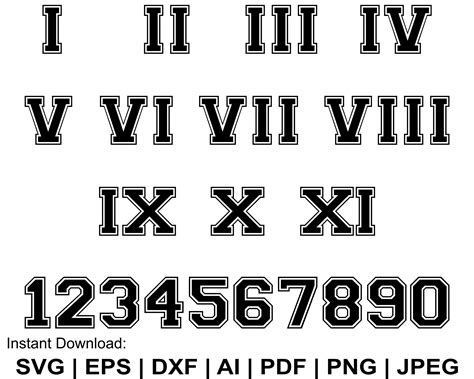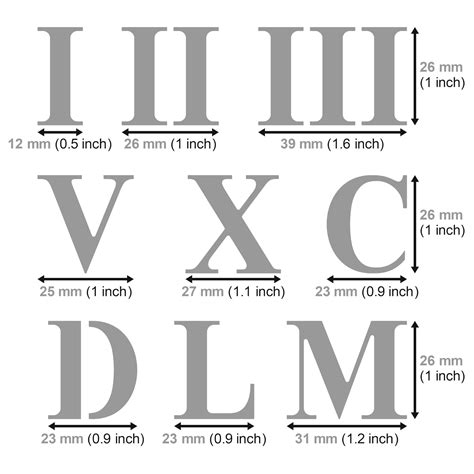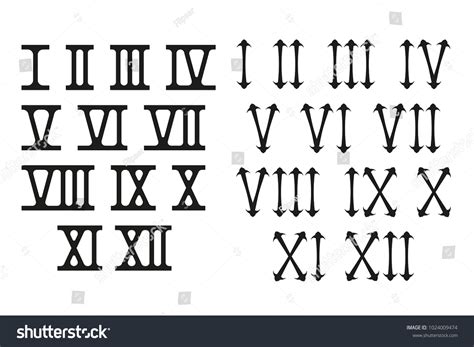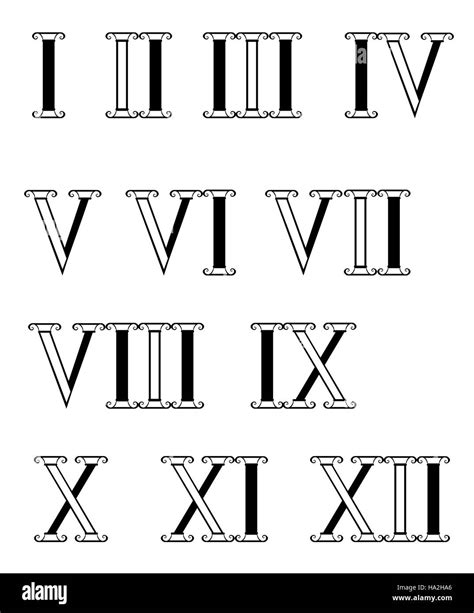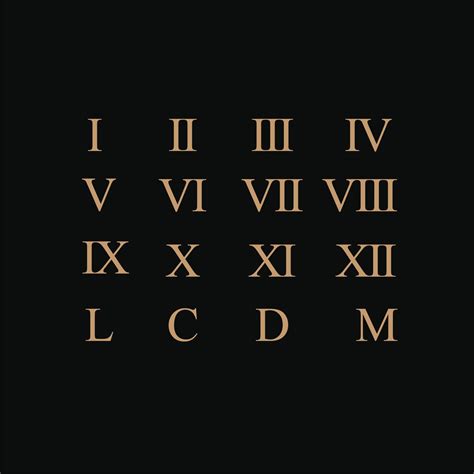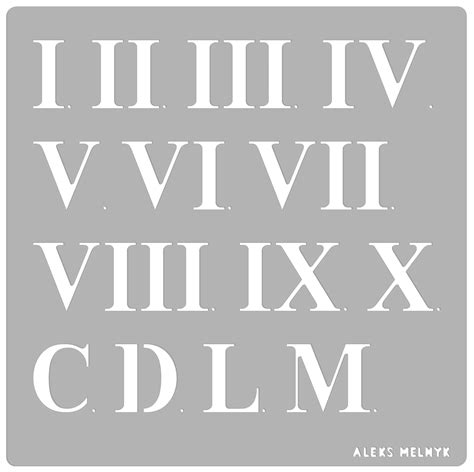
Roman numerals have been a part of human history for centuries, serving as a foundational system for counting and recording dates. Today, the Roman numeral font continues to captivate designers, historians, and enthusiasts alike. This timeless script offers a unique aesthetic that blends elegance with functionality, making it a popular choice for various applications, from typography to branding.
Understanding Roman Numerals
Roman numerals are a numeral system that originated in ancient Rome and remained the standard way of writing numbers throughout Europe well into the Late Middle Ages. The system uses combinations of letters from the Latin alphabet to signify values. The basic symbols are:
- I = 1
- V = 5
- X = 10
- L = 50
- C = 100
- D = 500
- M = 1000
These symbols can be combined to represent larger numbers. For example, IV represents 4, and IX represents 9. The system is additive and subtractive, where smaller values before larger ones are subtracted, and smaller values after larger ones are added.
The Aesthetic Appeal of Roman Numeral Font
The Roman numeral font is renowned for its classic and sophisticated appearance. Its use in design can evoke a sense of tradition and timelessness, making it ideal for projects that require a touch of elegance. Whether used in logos, invitations, or historical documents, the Roman numeral font adds a layer of sophistication that is hard to achieve with modern numerals.
One of the key reasons for the enduring popularity of the Roman numeral font is its versatility. It can be used in a variety of contexts, from formal to casual, and still maintain its distinctive charm. For instance, it is commonly seen in:
- Clock faces
- Book chapter headings
- Movie credits
- Historical markers
- Wedding invitations
Each of these applications benefits from the unique visual appeal of the Roman numeral font, enhancing the overall aesthetic and readability.
Historical Significance
The historical significance of Roman numerals cannot be overstated. They were the primary method of numerical notation in Europe for over a thousand years. The Roman numeral font has been used in some of the most iconic historical documents and artifacts, including:
- The Colosseum inscriptions
- Medieval manuscripts
- Renaissance art
- Ancient coins and currency
These historical uses have cemented the Roman numeral font as a symbol of enduring cultural heritage. Today, it continues to be a source of inspiration for designers and historians alike, who appreciate its rich history and timeless beauty.
Modern Applications of Roman Numeral Font
While the Roman numeral font has deep historical roots, it is also highly relevant in modern times. Its use in contemporary design can add a touch of sophistication and elegance to various projects. Some modern applications include:
- Branding and logos
- Typography in print and digital media
- Event invitations and announcements
- Architectural designs
- Fashion and jewelry design
In each of these applications, the Roman numeral font serves as a visual anchor, drawing attention and adding a layer of depth to the design.
Designing with Roman Numeral Font
When incorporating the Roman numeral font into your design projects, there are several key considerations to keep in mind. These include:
- Legibility: Ensure that the font size and style are easily readable, especially in smaller formats.
- Context: Choose the appropriate style of Roman numeral font based on the context of your project. For example, a more ornate style might be suitable for invitations, while a simpler style might be better for logos.
- Consistency: Maintain consistency in the use of Roman numerals throughout your design to create a cohesive look.
By following these guidelines, you can effectively integrate the Roman numeral font into your designs, enhancing their visual appeal and historical significance.
Popular Roman Numeral Fonts
There are numerous Roman numeral fonts available, each with its unique characteristics and styles. Some of the most popular options include:
| Font Name | Description |
|---|---|
| Trajan | A classic serif font inspired by ancient Roman inscriptions, often used in movie titles and logos. |
| Century | A versatile serif font with a modern twist, suitable for both print and digital media. |
| Garamond | A timeless serif font with elegant curves, perfect for formal documents and invitations. |
| Bodoni | A high-contrast serif font with a strong, bold appearance, ideal for headlines and titles. |
Each of these fonts offers a unique take on the Roman numeral style, allowing designers to choose the one that best fits their project's needs.